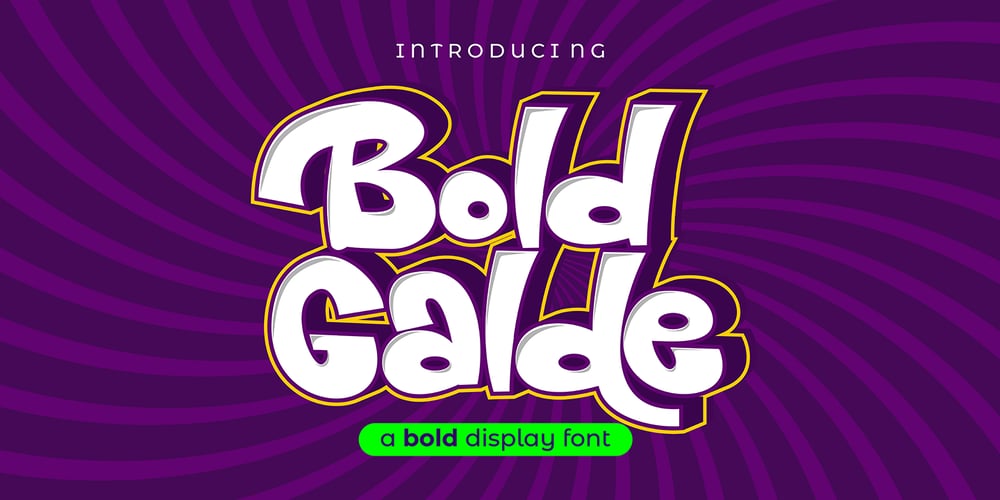
Bold Galde
Bold Galde font
Bold Galde Font Family was designed by Sipanji and published by Sipanji21. Bold Galde contains 2 styles and family package options. “Bolde Galde” is a cute display font characterized by thick and rounded letterforms, making it a great choice for design projects aimed at children, such as children’s games, book covers, and any projects related to schools. With its playful and friendly appearance, this font adds a touch of whimsy and charm to your designs, making them more engaging and enjoyable for young audiences. The simplicity and clarity of “Bolde Galde” make it easy to read and understand, making it an excellent choice for educational materials and other projects aimed at young learners.